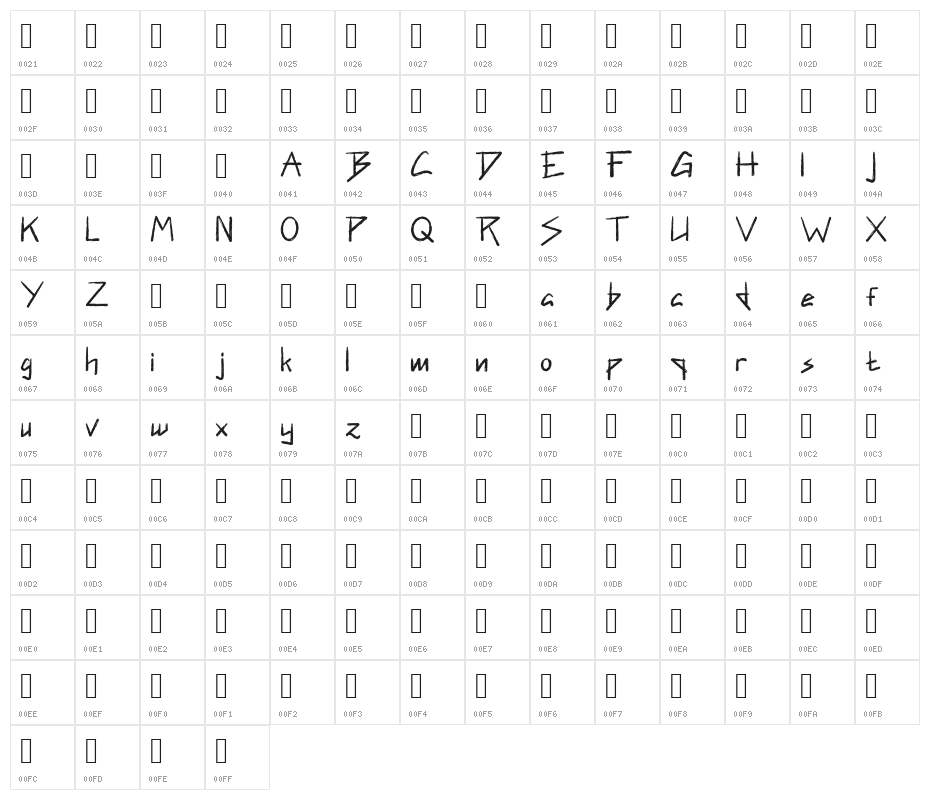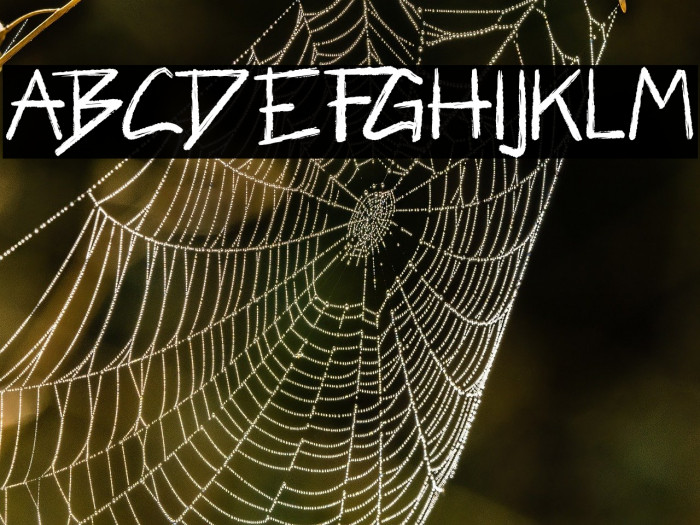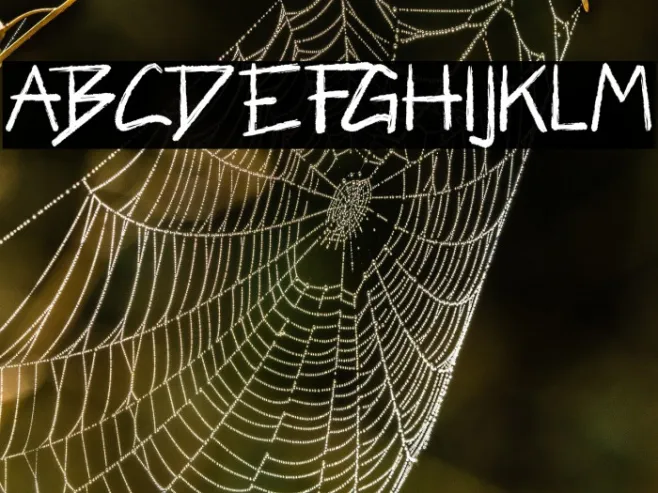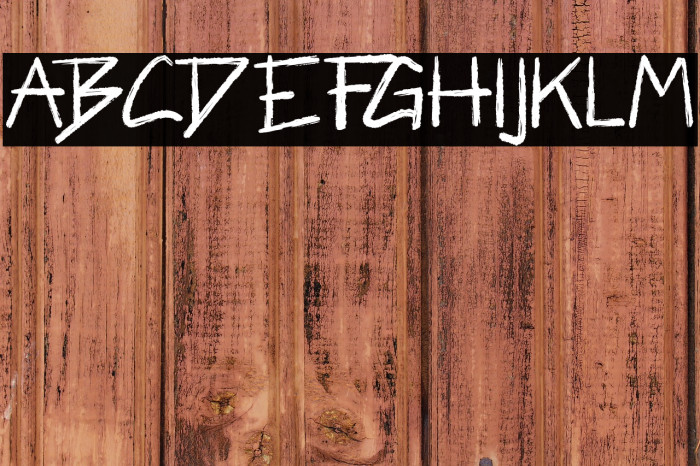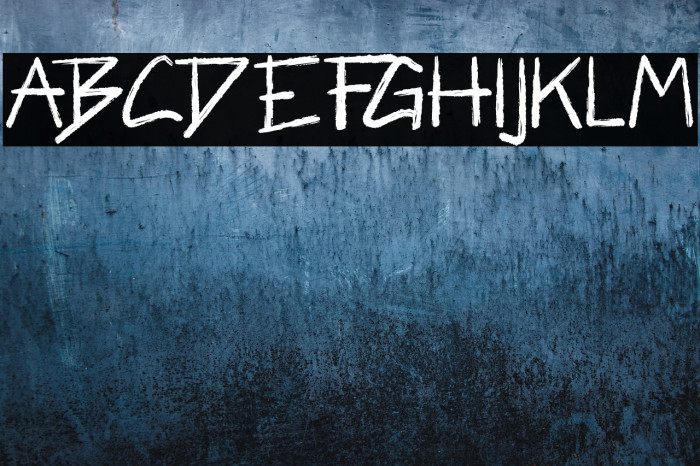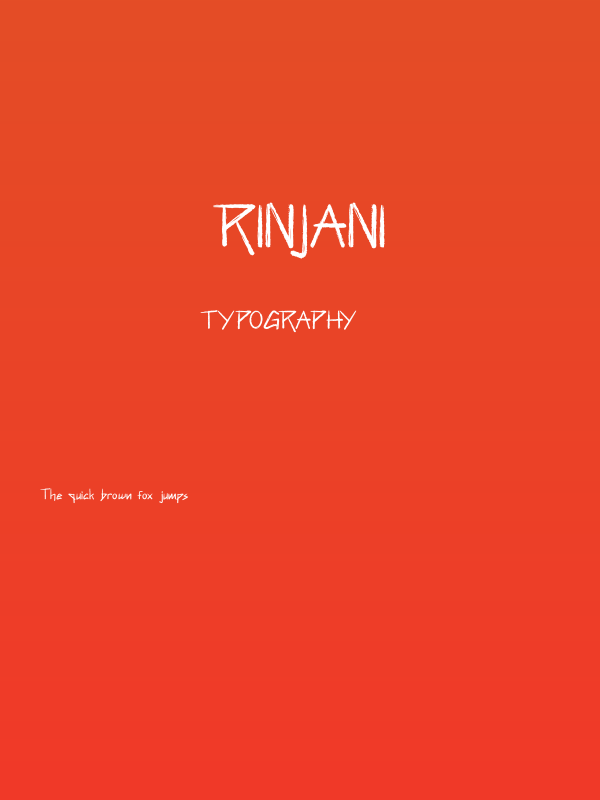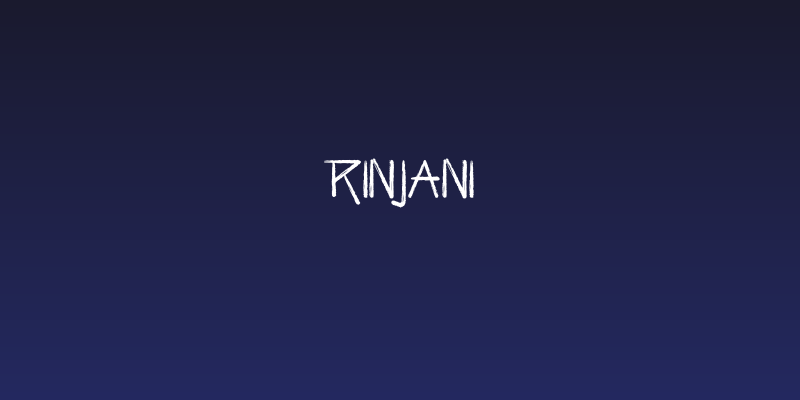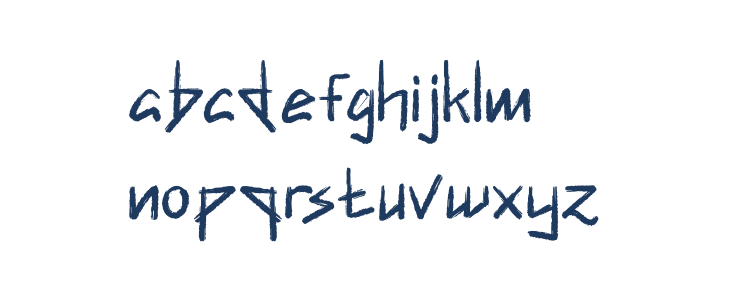
Rinjani Font
Rinjani Description
This font features a bold, handwritten style with a raw, edgy appearance. The uppercase letters are angular and dynamic, giving a sense of movement and energy. The lowercase letters maintain this energetic feel with slightly more rounded forms, adding a touch of softness. The strokes are uneven, mimicking the natural flow of handwriting, which adds to its authentic and personal touch. The font lacks traditional serifs, emphasizing its modern and informal character. It is well-suited for projects that require a personal, creative, or rebellious aesthetic.
Proposed ProjectsIdeal for creative projects, branding, posters, and any design needing a personal, energetic touch.